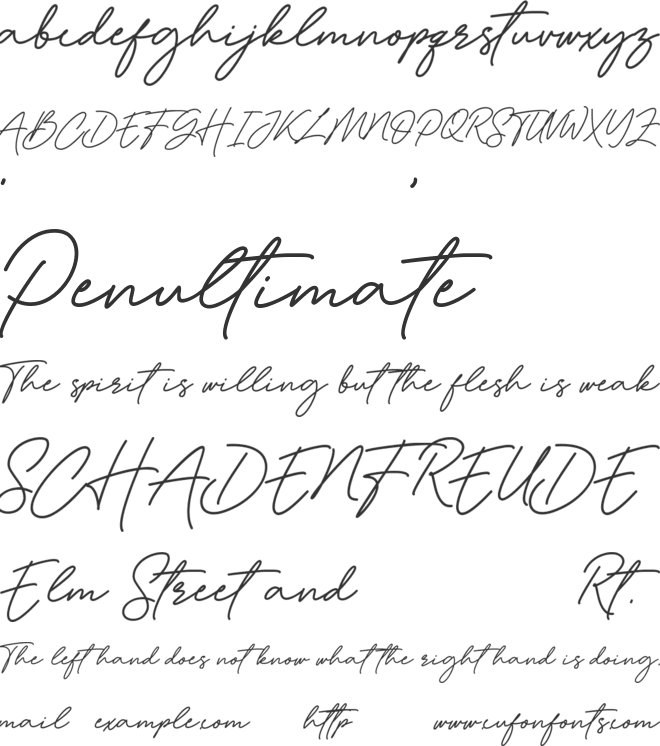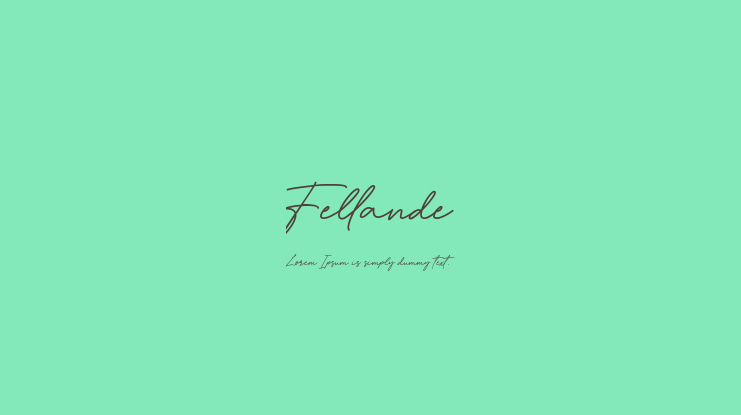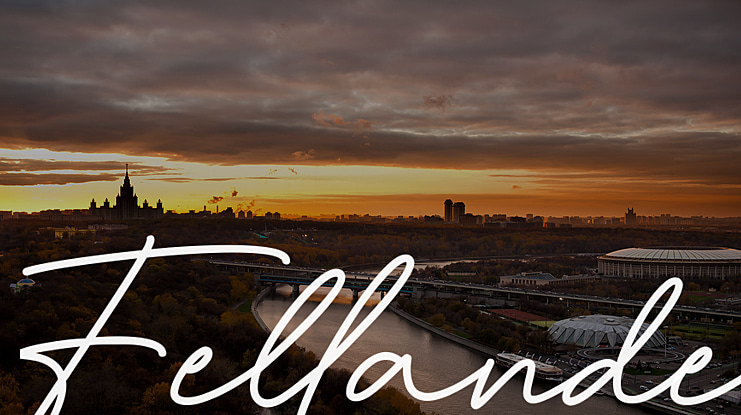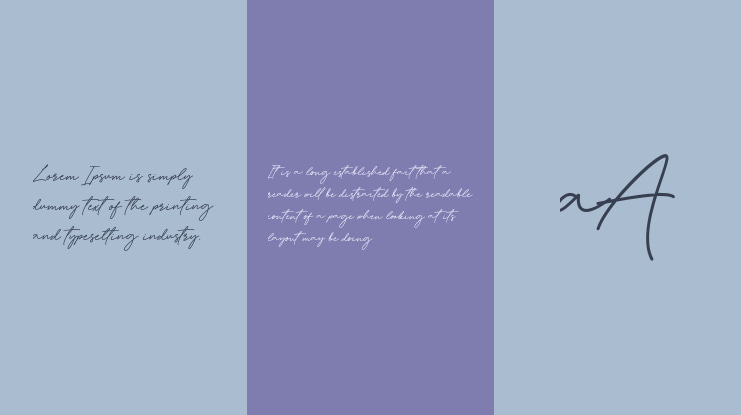
Fellande Font
Fellande Handwritten Font is an exquisite handwritten typeface, masterfully designed to become a true favorite. It maintains its classy calligraphic influences while feeling contemporary and fresh. Fall in love with it and bring your projects to the highest levels!
– Uppercase, Lowercase, Numeral & Punctuation
– Alternate Letters, Ligature & Swash/Tail